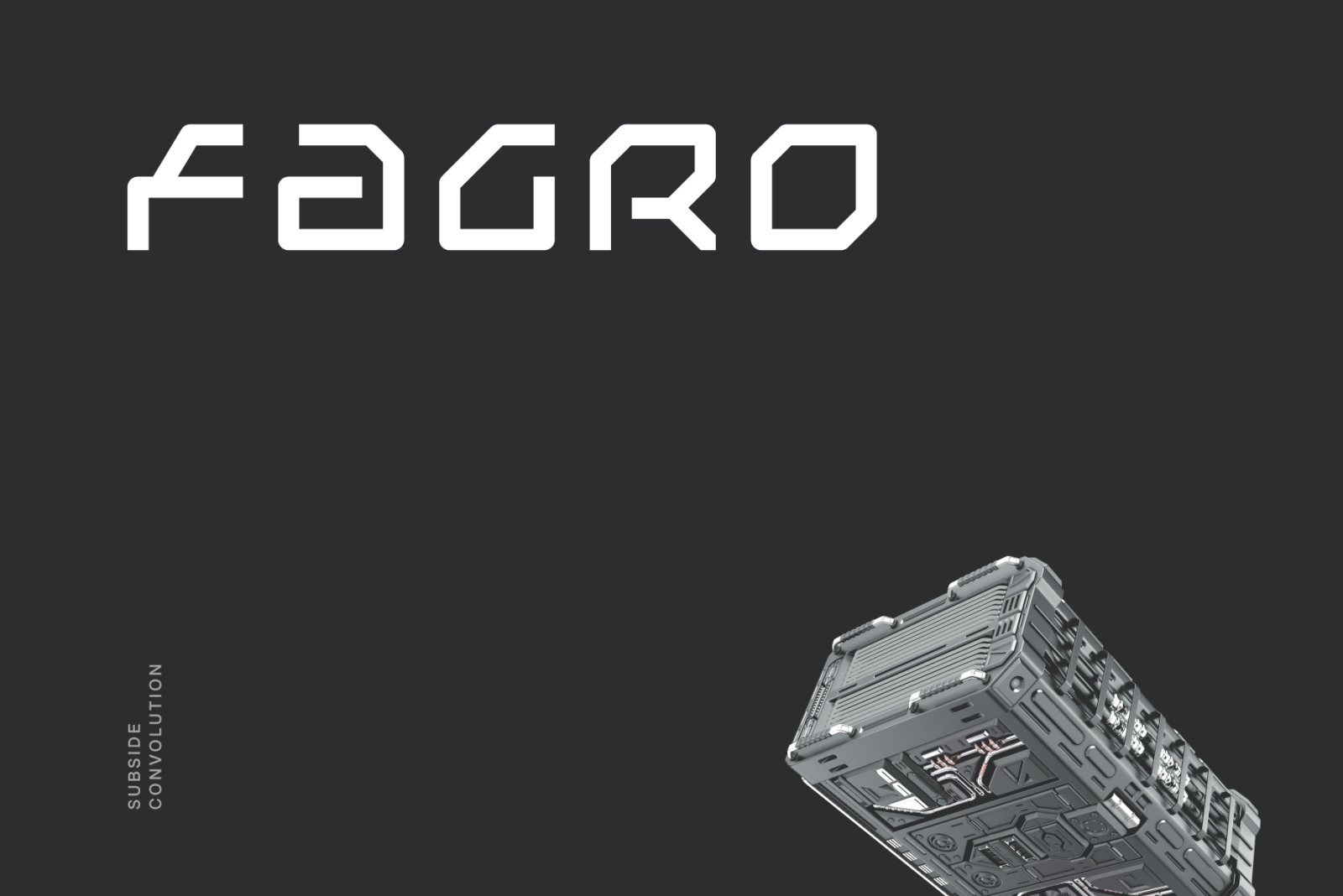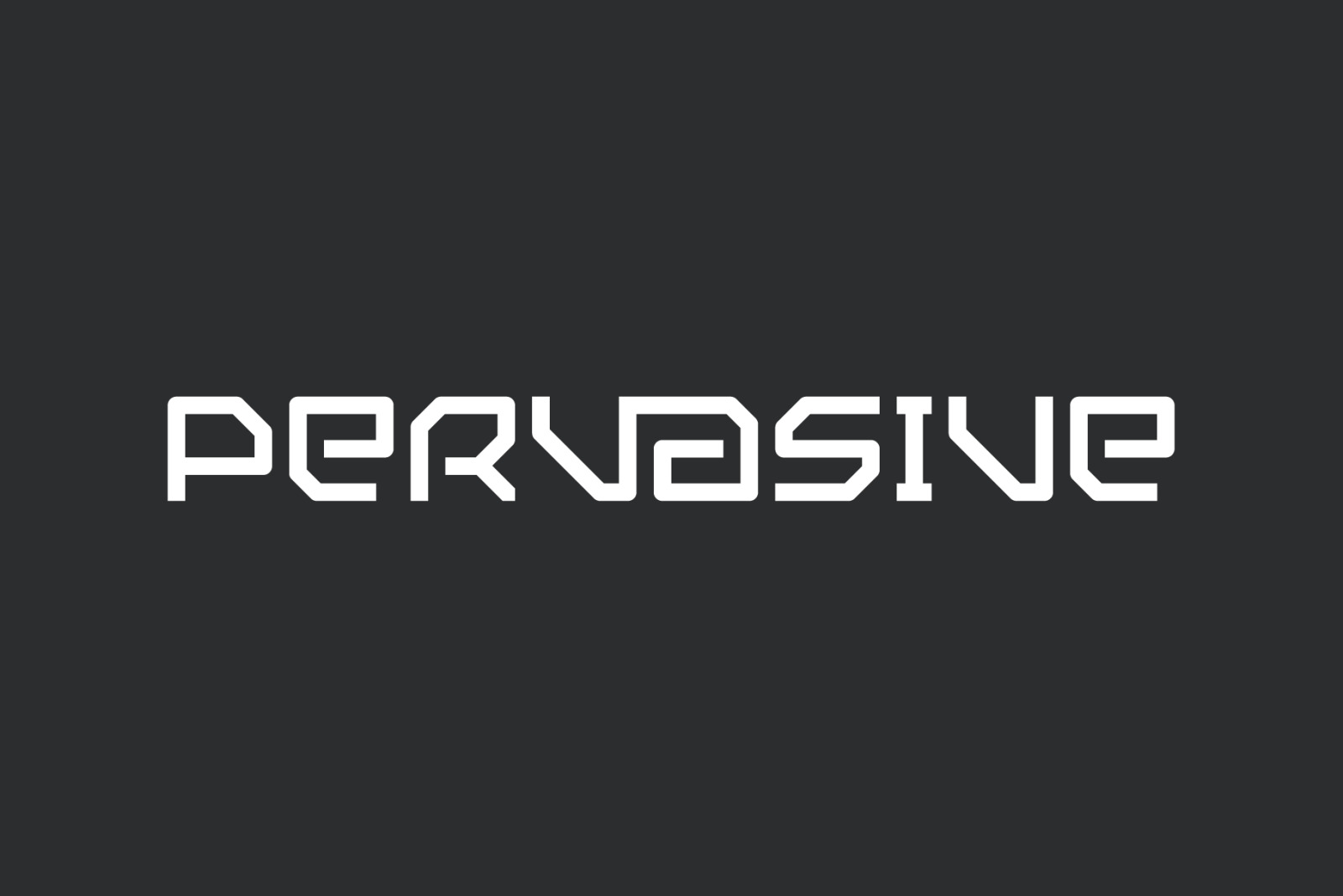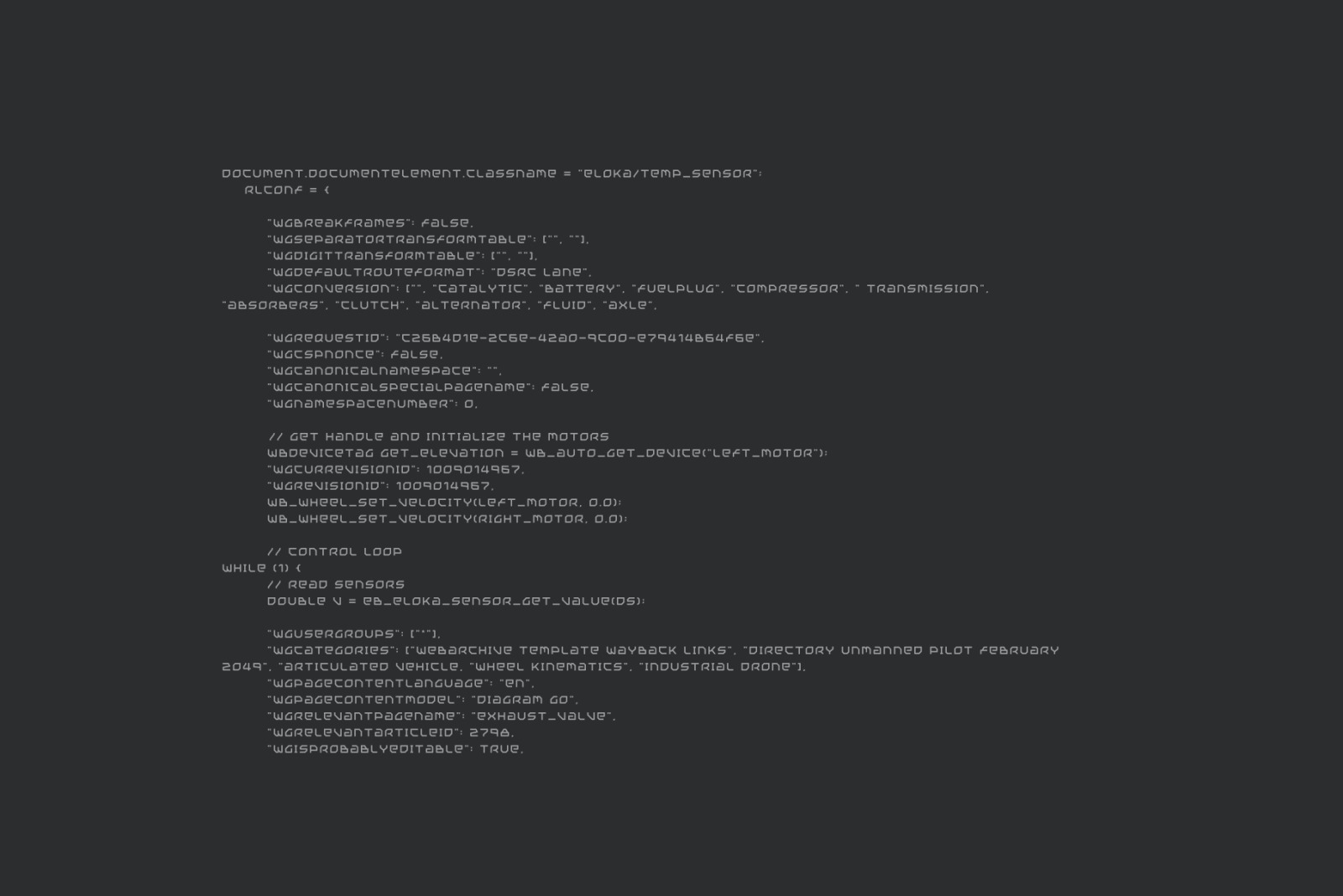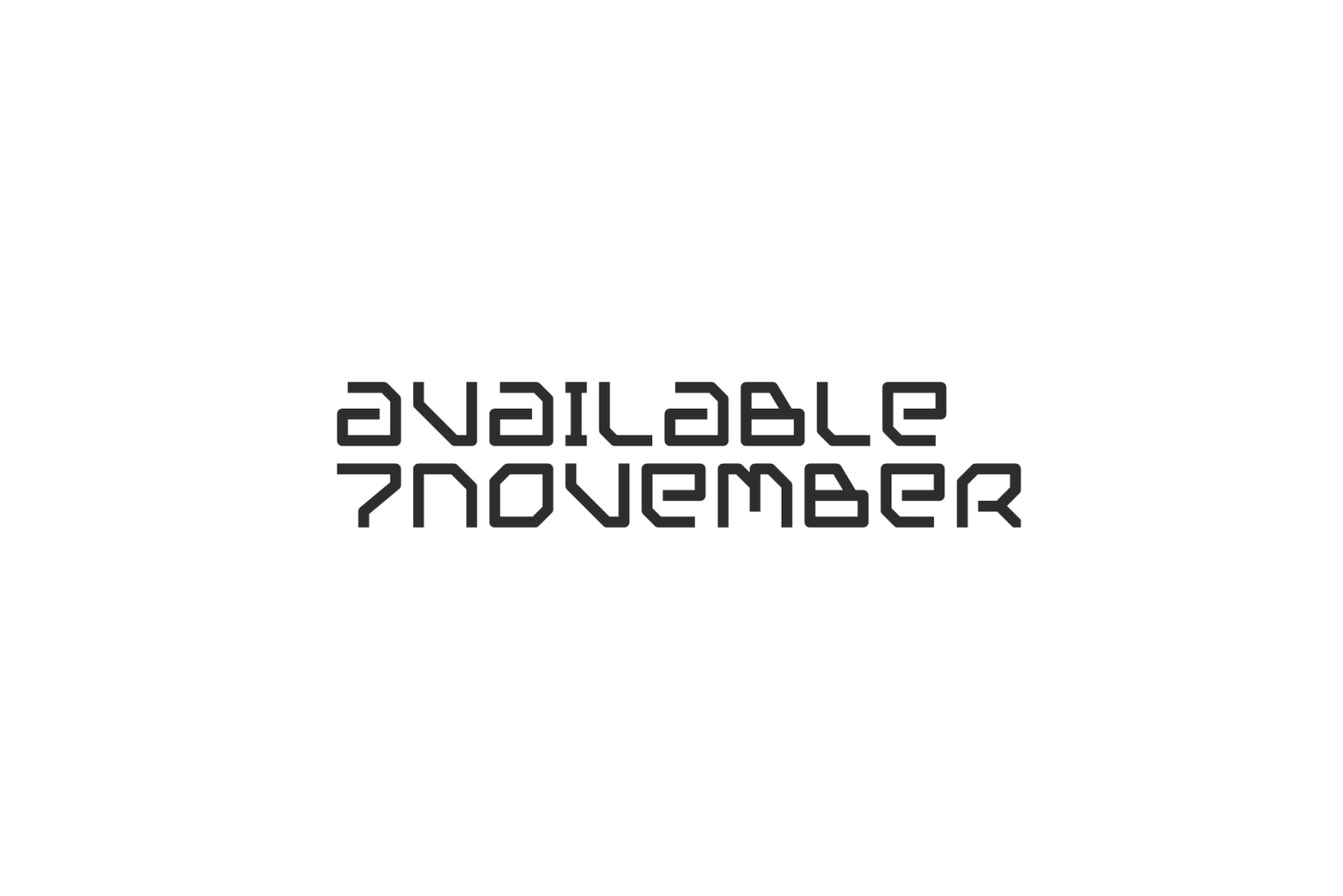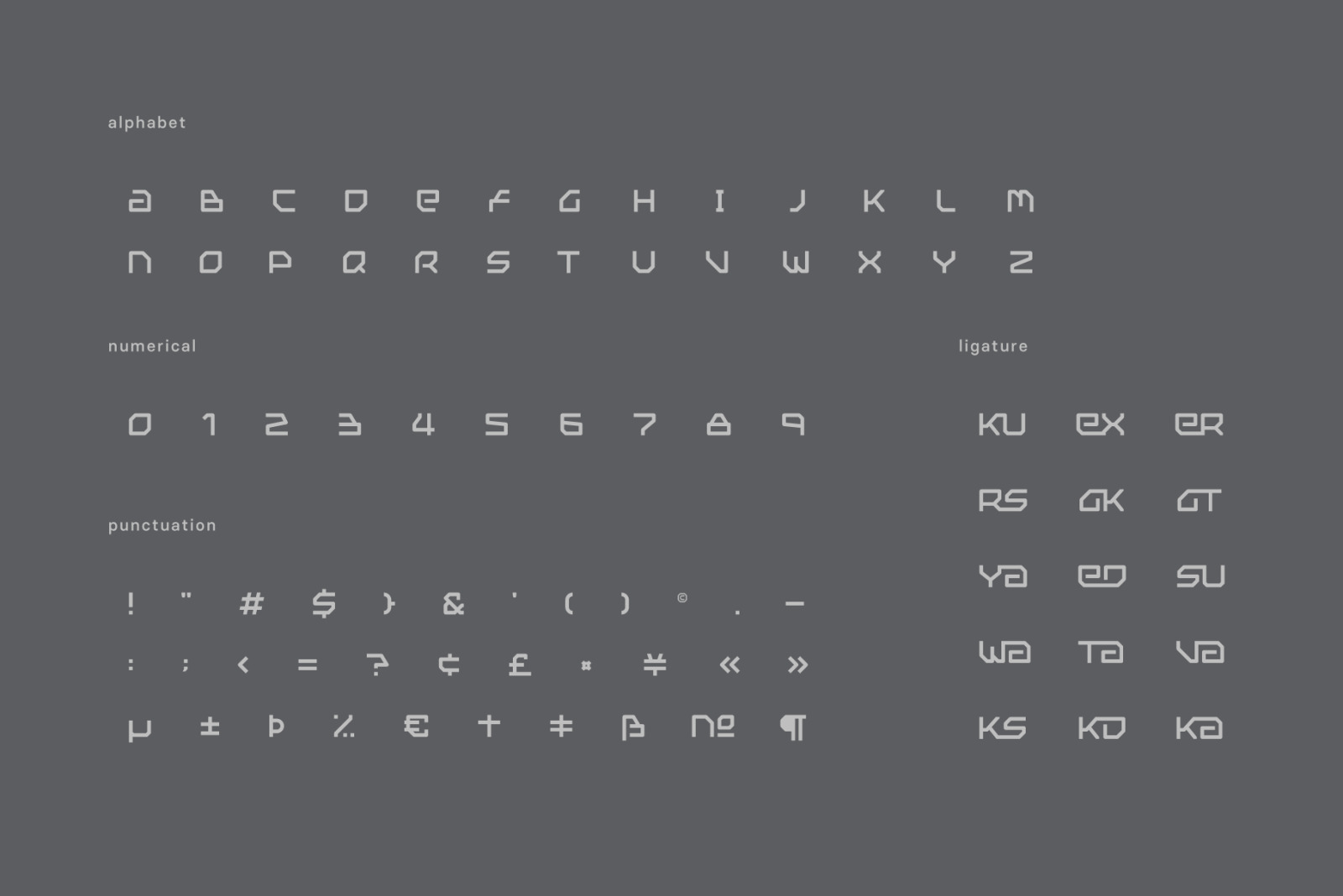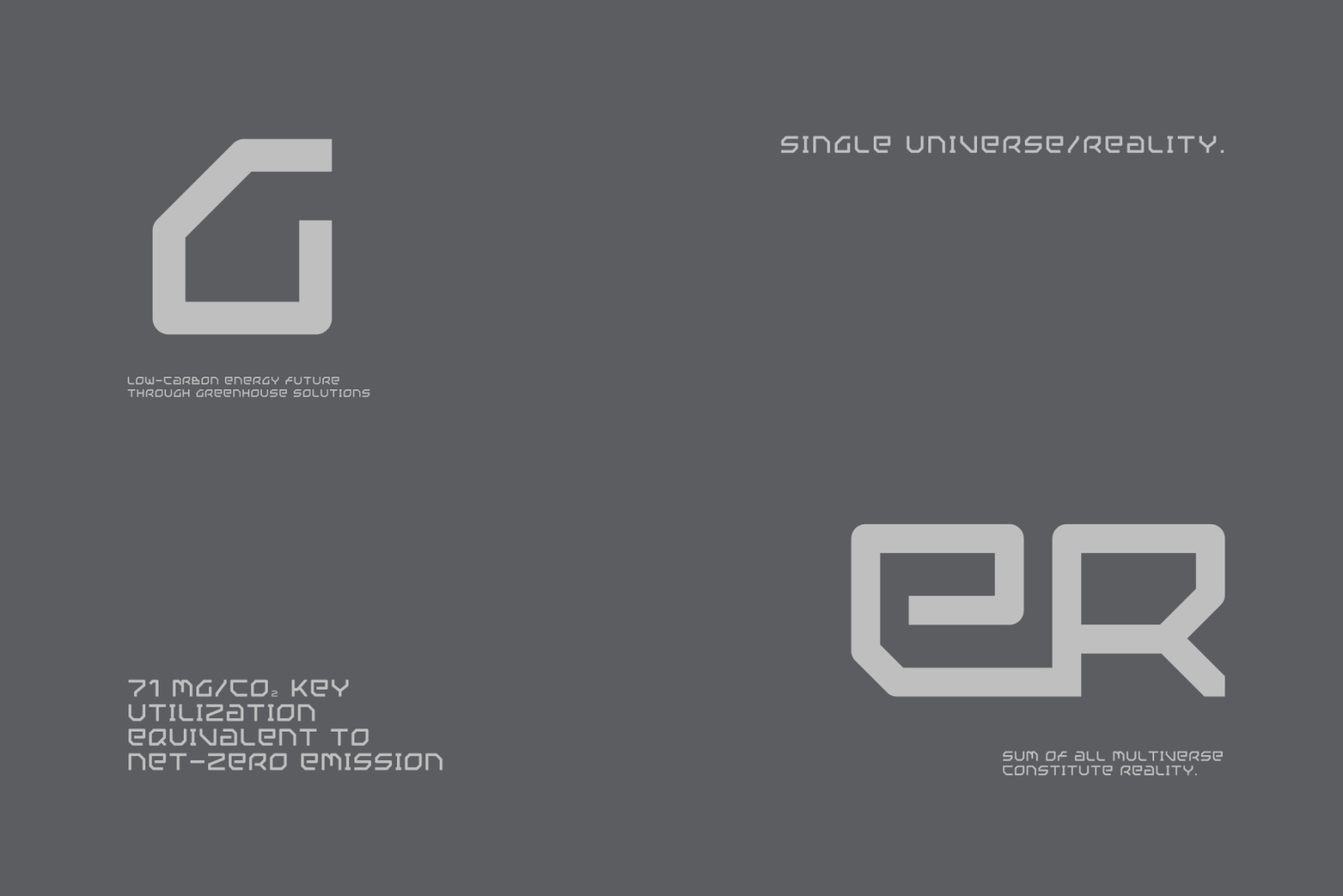
Fagro Futuristic Tech Font
Fagro is a subside convolution tech sans apt for headline, editorial, branding, packaging, printed materials and typographic applications. 150+ glyphs with ligatures and fractions provided in opentype .otf and .woff format.